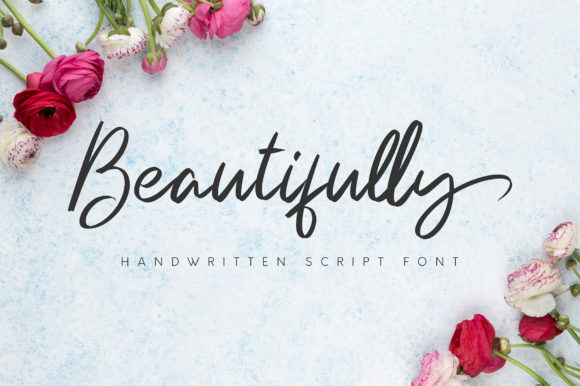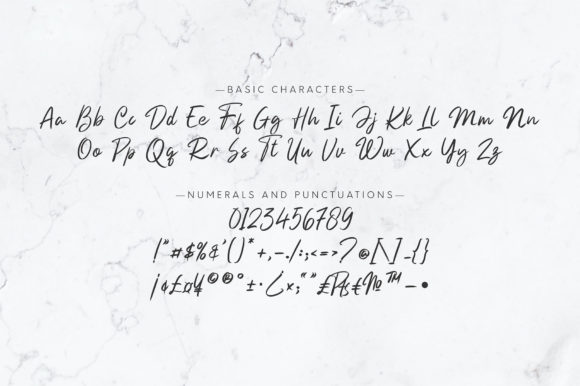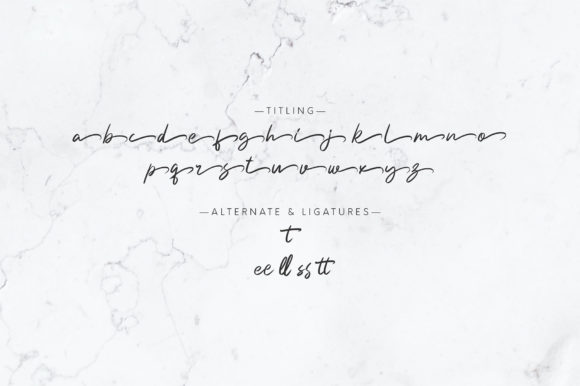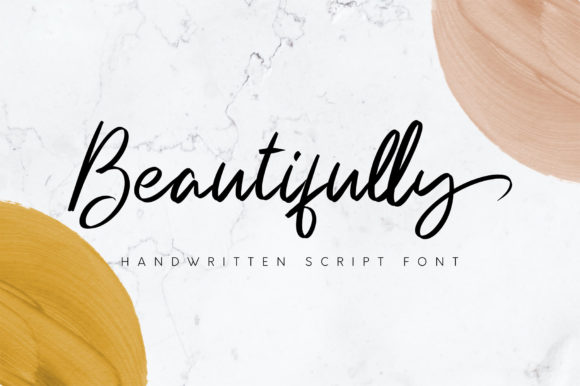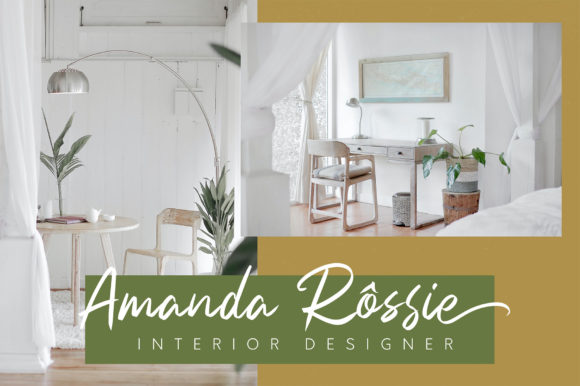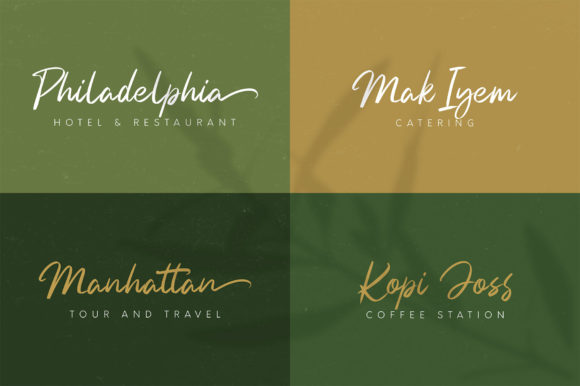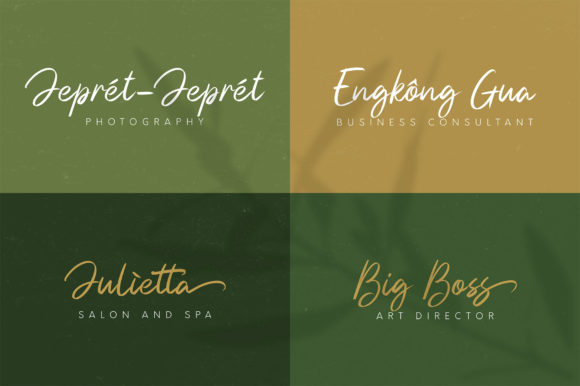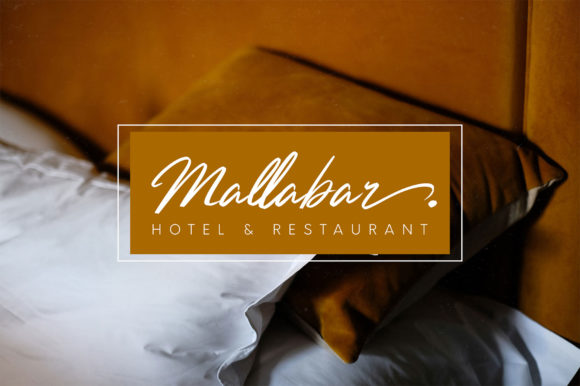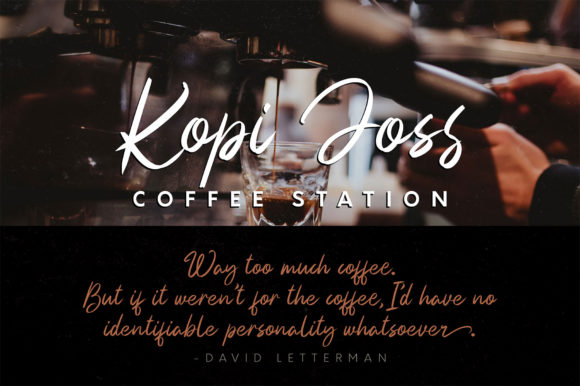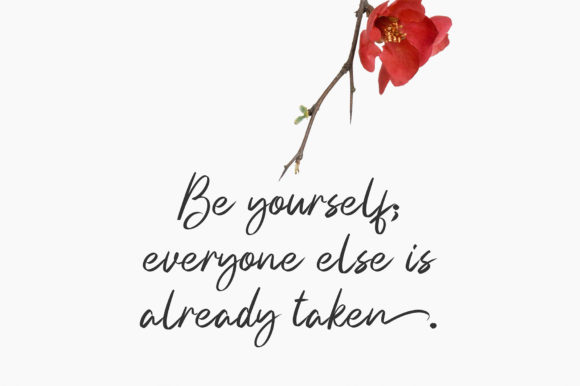
Beautifully Font
About Beautifully Font
Beautifully is a cute and casual handwritten font with an incredibly friendly feel. It features gorgeous swashes and ligatures that make this script incredibly versatile. Fall in love with its authentic feel and use it to create gorgeous wedding invitations, beautiful stationary art, eye-catching social media posts, and cute greeting cards.